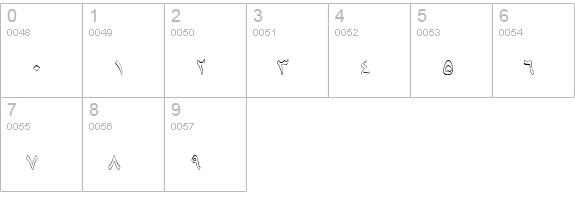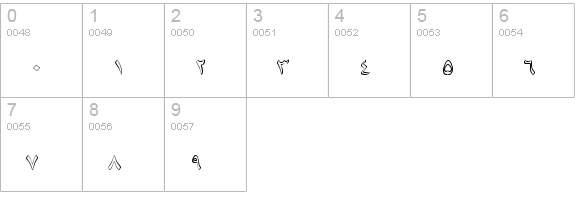
B Tawfig Outline Font Details
B Tawfig Outline font is a stylish and modern typeface that combines elegance with a touch of playfulness. Its clean lines and unique design make it perfect for a wide range of design projects, from logos to posters to packaging. The outline style adds a contemporary edge to the font, making it stand out in any context. Best of all, B Tawfig Outline font is completely free to download at FontsMarket.com. This means you can add this versatile and eye-catching font to your collection without any cost. Whether you're a designer looking to expand your font library or a hobbyist looking to spice up your projects, B Tawfig Outline font is a fantastic choice. Download it today and see how it can enhance your designs!